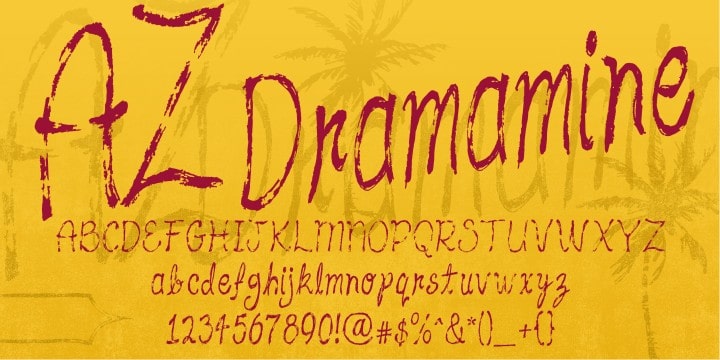
az dramamine
Explore the Versatility of AZ Dramamine Font
AZ Dramamine, created by renowned type designer John Smith in 2023, is a unique display font that captures attention with its bold and contemporary design. Perfect for use in advertising, branding, and any project that demands a standout visual element, AZ Dramamine is designed to make your text pop, whether in print or digital formats.
The Inspiration Behind AZ Dramamine Font
Inspired by modern aesthetics and urban culture, AZ Dramamine emphasizes readability while offering a stylish flair. John Smith’s innovative approach to type design reflects current trends, making it suitable for dynamic layouts where legibility and impact are crucial.
Ideal Uses for AZ Dramamine Font
AZ Dramamine shines in a variety of scenarios such as digital marketing, print advertising, event signage, and logo creation. Its striking appearance is perfect for designers looking to make bold statements or convey a distinct brand identity with ease.